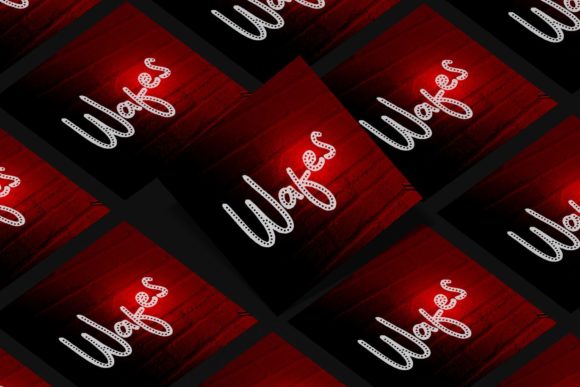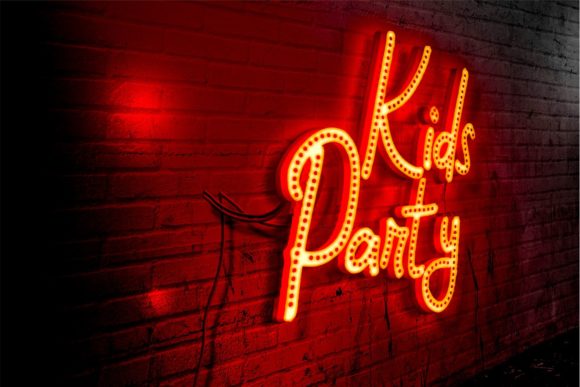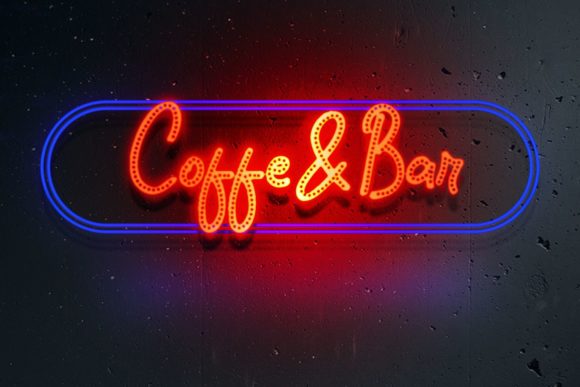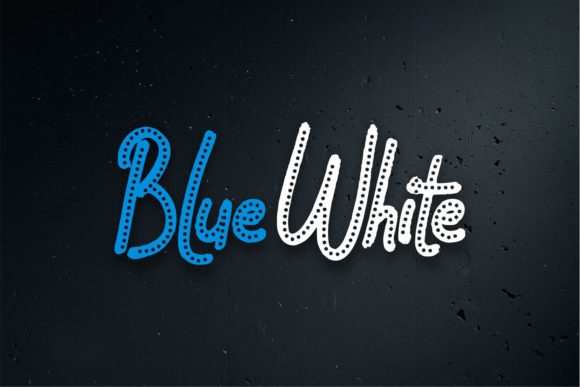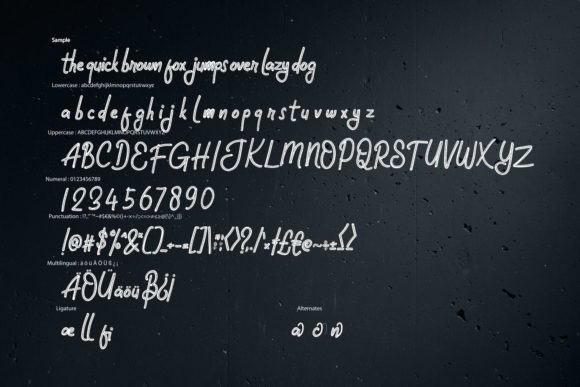
Introducing HappyFun Font: Elevate Your Designs to New Heights
Are you tired of using the same old fonts in your designs? Look no further! HappyFun Font is here to take your creative projects to the next level. This awesome display font is perfect for designers and crafters who want to add a touch of excitement and personality to their work.
What is HappyFun Font?
HappyFun Font is a unique and versatile display font that can be used for a wide range of design projects. Its playful and fun design makes it perfect for branding, headings, wedding designs, invitations, signatures, logos, labels, and much more!
Key Features of HappyFun Font
- Unique Design: HappyFun Font has a one-of-a-kind design that will make your projects stand out from the crowd.
- Versatility: This font can be used for a variety of design projects, from branding and advertising to wedding designs and invitations.
- High-Quality: This font is designed with high-quality and clarity in mind, ensuring that it looks great in any size or resolution.
- Branding: Use HappyFun Font to create eye-catching logos, business cards, and letterheads that will help your brand stand out.
- Wedding Designs: Add a touch of whimsy and romance to your wedding designs, including invitations, programs, and decorations.
- Invitations: Use HappyFun Font to create fun and playful invitations for parties, events, and other celebrations.
Benefits of Using HappyFun Font
There are many benefits to using HappyFun Font in your designs. Here are just a few:
- Stand Out: HappyFun Font is a unique and attention-grabbing font that will help your designs stand out from the crowd.
- Creativity: This font is perfect for designers and crafters who want to add a touch of creativity and personality to their work.
- Professional Results: With HappyFun Font, you can achieve professional-looking results without spending hours searching for the perfect font.
Tips and Tricks for Getting the Most Out of HappyFun Font
Here are a few tips and tricks for getting the most out of HappyFun Font:
- Experiment with Different Sizes: HappyFun Font looks great in a variety of sizes, so don’t be afraid to experiment and find the perfect size for your design.
- Pair it with Other Fonts: HappyFun Font pairs well with a variety of other fonts, so try pairing it with some of your favorite fonts to create a unique look.
- Use it for Headings: HappyFun Font is perfect for headings and titles, so use it to add a touch of excitement and personality to your designs.
In conclusion, HappyFun Font is an awesome display font that can elevate a wide range of design projects to the highest level. Its unique design, versatility, and ease of use make it perfect for designers and crafters who want to add a touch of excitement and personality to their work. Whether you’re creating branding materials, wedding designs, invitations, or signatures, HappyFun Font is the perfect choice. So why wait? Download HappyFun Font today and start taking your designs to new heights!